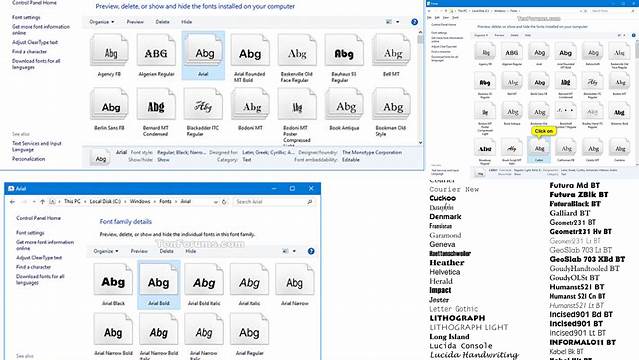
Windows 10 Default Fonts: A Comprehensive List
Hey guys! Ever wondered about the default fonts in Windows 10? Knowing the standard fonts can be super helpful for various reasons. Whether you're a designer ensuring your work looks consistent across different systems, a developer setting up a new environment, or just a curious user, this article is for you! Let’s dive into the world of Windows 10 fonts and explore what comes pre-installed on your system. Understanding these default fonts can be incredibly beneficial. For example, designers can use them as a baseline to ensure their creations are legible and consistent across different platforms. Developers can leverage them in web design or software interfaces, knowing they will likely be available on most Windows 10 installations. Even regular users can benefit from this knowledge, especially when dealing with document formatting or creating presentations. Knowing which fonts are universally available can prevent unexpected font substitutions and maintain the intended look and feel of your work. Plus, having a grasp of the default font library can spark creativity and help you explore new typographic styles within the boundaries of what’s readily accessible. So, stick around as we unravel the mystery of Windows 10’s font collection and uncover the gems that come standard with the operating system.
Why Default Fonts Matter
Default fonts are the fonts that come pre-installed with an operating system, and they play a crucial role in digital communication and design. They ensure a baseline level of consistency across different devices, which is super important. Imagine creating a document with a fancy font, only to have it replaced with something completely different on another computer. Default fonts prevent this from happening. When you use a default font, you can be reasonably sure that your document, presentation, or website will look as intended on most devices running the same operating system. This consistency is vital for professional documents, marketing materials, and any other context where visual presentation matters. Moreover, default fonts often provide a reliable and legible foundation for content. They are typically chosen for their readability and versatility, making them suitable for a wide range of applications. For example, fonts like Arial and Times New Roman have been staples in business and academic settings for decades due to their clarity and widespread availability. Additionally, understanding default fonts can save you time and effort. Instead of searching for and installing custom fonts, you can rely on the default set to create polished and professional-looking documents quickly. This is particularly useful when collaborating with others, as it reduces the chances of font compatibility issues. Furthermore, default fonts often serve as the starting point for more complex designs. Designers may use them as a base and then customize them further to achieve a unique look while maintaining a level of familiarity and readability. In essence, default fonts are the unsung heroes of digital typography, ensuring consistency, legibility, and ease of use across various platforms and applications.
Common Default Fonts in Windows 10
Windows 10 comes with a plethora of default fonts, each with its unique style and purpose. Let's explore some of the most common ones. Arial is a classic sans-serif font known for its clean and modern appearance. It’s often used for body text and headlines due to its excellent readability. Times New Roman, a serif font, is another staple, widely used in academic papers and formal documents. Its traditional look makes it a reliable choice for professional writing. Calibri, a sans-serif font, is the default font for Microsoft Office applications, offering a contemporary and friendly feel. It's a versatile font suitable for both body text and headings. Consolas, a monospaced font, is favored by programmers and developers because each character occupies the same horizontal space, making code easier to read. These fonts are just the tip of the iceberg. Windows 10 also includes fonts like Cambria, a serif font with a polished look; Corbel, a sans-serif font with rounded terminals; and Segoe UI, the default font for the Windows user interface, offering a modern and sleek aesthetic. Beyond these, you'll find a variety of other fonts, including those designed for specific languages and scripts. For instance, there are fonts for Cyrillic, Greek, and various Asian languages, ensuring that Windows 10 can display text correctly in almost any language. The vast collection of default fonts in Windows 10 reflects Microsoft's commitment to providing a comprehensive and versatile typographic toolkit for its users. Whether you're creating a simple document or designing a complex layout, the default fonts in Windows 10 offer a solid foundation for your work. By understanding the characteristics and best uses of these fonts, you can make informed decisions and create visually appealing and effective communication materials.
When it comes to sans-serif fonts, Windows 10 offers a fantastic range of options. These fonts are characterized by the absence of the small decorative strokes, or serifs, at the end of each character, giving them a clean and modern look. Arial is probably the most well-known sans-serif font in Windows 10. Its simple, straightforward design makes it incredibly versatile for various applications, from body text to headlines. Calibri, as mentioned earlier, is another popular choice, known for its soft, rounded shapes that give it a friendly and approachable feel. Segoe UI is the default system font for Windows, and it’s designed for on-screen readability. Its clean lines and balanced proportions make it ideal for user interfaces and digital displays. Corbel is another notable sans-serif font, offering a slightly more stylized appearance with its distinctive letterforms. It's a great option for adding a touch of personality to your text while maintaining clarity. Beyond these, Windows 10 includes several other sans-serif fonts, each with its unique characteristics. Fonts like Franklin Gothic, Helvetica Neue (if you have it installed), and Open Sans (which may come with certain applications) are also commonly used. These fonts offer different weights and styles, allowing you to create visual hierarchy and emphasis in your designs. Sans-serif fonts are generally considered to be more legible on screens, making them a popular choice for websites, apps, and digital documents. Their clean and modern aesthetic also makes them suitable for branding and marketing materials. Whether you're designing a website, creating a presentation, or writing a report, the sans-serif fonts in Windows 10 provide a solid foundation for your typographic needs. By experimenting with different fonts and styles, you can find the perfect combination to convey your message effectively and create visually appealing designs.
Serif fonts, with their small decorative strokes at the end of each character, bring a touch of tradition and formality to your text. Windows 10 includes several excellent serif fonts that are perfect for creating a classic and polished look. Times New Roman is arguably the most iconic serif font, widely used in academic papers, books, and formal documents. Its timeless design and excellent readability make it a staple in professional writing. Cambria is another popular serif font in Windows 10, known for its elegant and refined appearance. It’s often used in body text and headings, providing a sophisticated touch to any document. Book Antiqua is a classic serif font that exudes warmth and readability. Its slightly rounded letterforms give it a friendly feel, making it a great choice for longer texts and printed materials. These serif fonts are just a few examples of the many options available in Windows 10. Other notable serif fonts include Garamond, known for its graceful and elegant letterforms, and Palatino, which offers a balanced and readable design. Serif fonts are often associated with print media, but they can also be used effectively in digital contexts. They tend to convey a sense of authority and professionalism, making them suitable for formal documents, reports, and publications. However, it's essential to consider the context and audience when choosing a serif font. While they can add a touch of elegance, they may not always be the best choice for on-screen reading, especially at smaller sizes. In such cases, sans-serif fonts might be more legible. Ultimately, the best font choice depends on the specific project and the message you want to convey. By understanding the characteristics and strengths of serif fonts, you can make informed decisions and create visually appealing and effective designs.
Monospaced Fonts
Monospaced fonts, also known as fixed-width fonts, are unique because each character occupies the same amount of horizontal space. This characteristic makes them particularly useful in specific contexts, especially in the world of coding and technical writing. Consolas is a standout monospaced font in Windows 10, highly favored by programmers and developers. Its clear and consistent letterforms make code easier to read and debug. Courier New is another well-known monospaced font, often used in screenplays and legal documents. Its classic typewriter-style appearance gives it a distinct and recognizable look. These fonts are the workhorses of the monospaced world, but Windows 10 also includes other options that cater to different tastes and requirements. For instance, Lucida Console is another monospaced font that offers excellent readability, making it suitable for both coding and general text display. Monospaced fonts are crucial in programming because they ensure that code lines up correctly, making it easier to spot errors and maintain a consistent structure. The equal spacing between characters helps to distinguish between similar characters, such as 'l' and '1' or '0' and 'O', which can be easily confused in proportional fonts. Beyond coding, monospaced fonts are also valuable in situations where alignment is critical, such as in tables, spreadsheets, and data displays. Their fixed-width nature ensures that columns and rows remain neatly aligned, regardless of the characters used. While monospaced fonts may not be the best choice for general body text due to their somewhat mechanical appearance, they excel in specific applications where clarity and precision are paramount. By understanding their unique characteristics and use cases, you can leverage monospaced fonts effectively in your projects.
Other Notable Fonts
Beyond the common categories, Windows 10 includes several other notable fonts that deserve a mention. These fonts often serve specific purposes or offer unique styles that can enhance your designs. For instance, Segoe UI Symbol is a font that contains a wide range of symbols and icons, making it invaluable for creating user interfaces and visual elements. It includes everything from basic arrows and checkmarks to more specialized symbols, providing a comprehensive toolkit for visual communication. Wingdings and Webdings are iconic symbol fonts that have been around for many years. They offer a fun and quirky way to add symbols and icons to your documents, although they are less commonly used in professional contexts today. Microsoft Sans Serif is a classic Windows font that has been a staple in the operating system for many years. While it may not be as modern as some other fonts, it remains a reliable and legible option for various applications. In addition to these, Windows 10 includes fonts designed for specific languages and scripts. For example, there are fonts for Cyrillic, Greek, Arabic, Hebrew, and various Asian languages, ensuring that the operating system can display text correctly in almost any language. These fonts often include multiple styles and weights, providing a rich typographic palette for multilingual communication. The inclusion of these diverse and specialized fonts highlights Microsoft's commitment to providing a comprehensive typographic toolkit for its users. Whether you need symbols, icons, or support for a specific language, Windows 10 has you covered. By exploring these less common but equally valuable fonts, you can add unique flair and functionality to your projects.
Managing Fonts in Windows 10
Managing fonts in Windows 10 is pretty straightforward, guys. You can easily view, install, and uninstall fonts to customize your system’s typography. To view the fonts installed on your system, just open the Settings app (you can search for it in the Start Menu) and go to “Personalization” and then “Fonts.” Here, you’ll see a list of all the fonts installed on your computer. Clicking on a font will show you its different styles and sizes, giving you a preview of how it looks. If you want to install a new font, you can simply drag and drop the font file (usually a .ttf or .otf file) into the font settings page, or right-click on the font file and select “Install.” Windows 10 will automatically install the font, making it available for use in all your applications. Uninstalling a font is just as easy. In the font settings page, click on the font you want to remove, and then click the “Uninstall” button. Windows will remove the font from your system. It’s important to note that uninstalling a default font can sometimes cause issues with the display of certain applications or documents, so it’s generally best to stick to uninstalling fonts you’ve added yourself. You can also use the classic Control Panel to manage fonts. Open Control Panel, go to “Appearance and Personalization,” and then click on “Fonts.” This will open a window showing all your installed fonts, and you can use the options in the left pane to view, install, or uninstall fonts. Managing your fonts effectively can help you keep your system organized and ensure that you have the fonts you need for your projects. By regularly reviewing your font collection and removing fonts you no longer use, you can improve performance and make it easier to find the fonts you need when you need them.
So, there you have it! A comprehensive look at the default fonts in Windows 10. From the classic Arial and Times New Roman to the coder-friendly Consolas and the symbol-rich Segoe UI Symbol, Windows 10 offers a diverse range of fonts to suit various needs. Understanding these default fonts is super useful for ensuring consistency, readability, and visual appeal in your documents, designs, and digital communications. Whether you’re a designer, developer, or just a regular user, knowing which fonts come standard with Windows 10 can save you time and effort. You can rely on these fonts to create professional-looking documents and designs without worrying about compatibility issues. Plus, exploring the different font styles and categories—sans-serif, serif, monospaced, and symbol fonts—can inspire your creativity and help you make informed choices about typography. Managing your fonts in Windows 10 is also straightforward, allowing you to customize your system’s typography by adding or removing fonts as needed. Remember, while it’s tempting to install a ton of fancy fonts, sticking to a core set of reliable and legible fonts is often the best approach, especially for professional projects. By leveraging the default fonts in Windows 10 effectively, you can create visually stunning and impactful communications that resonate with your audience. So go ahead, experiment with these fonts, and discover the power of typography in your work!